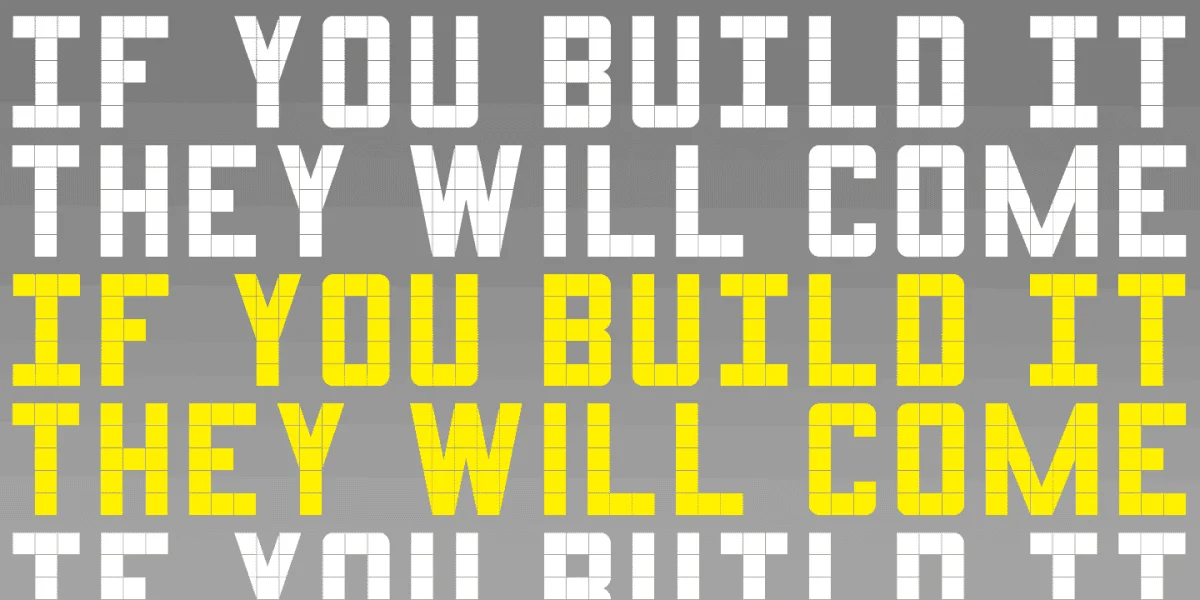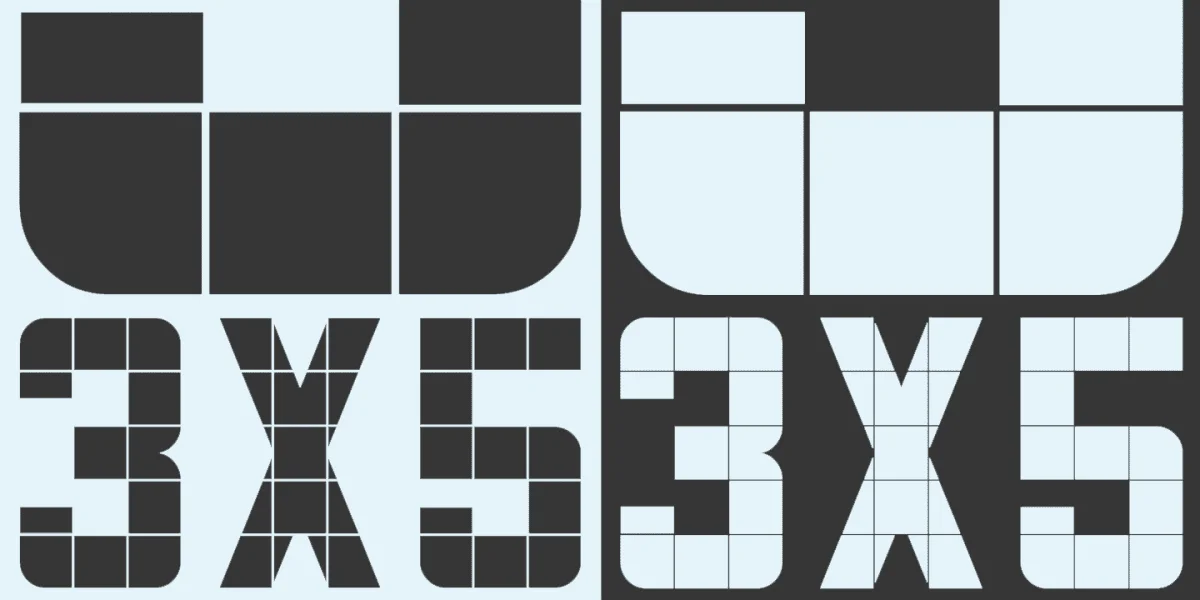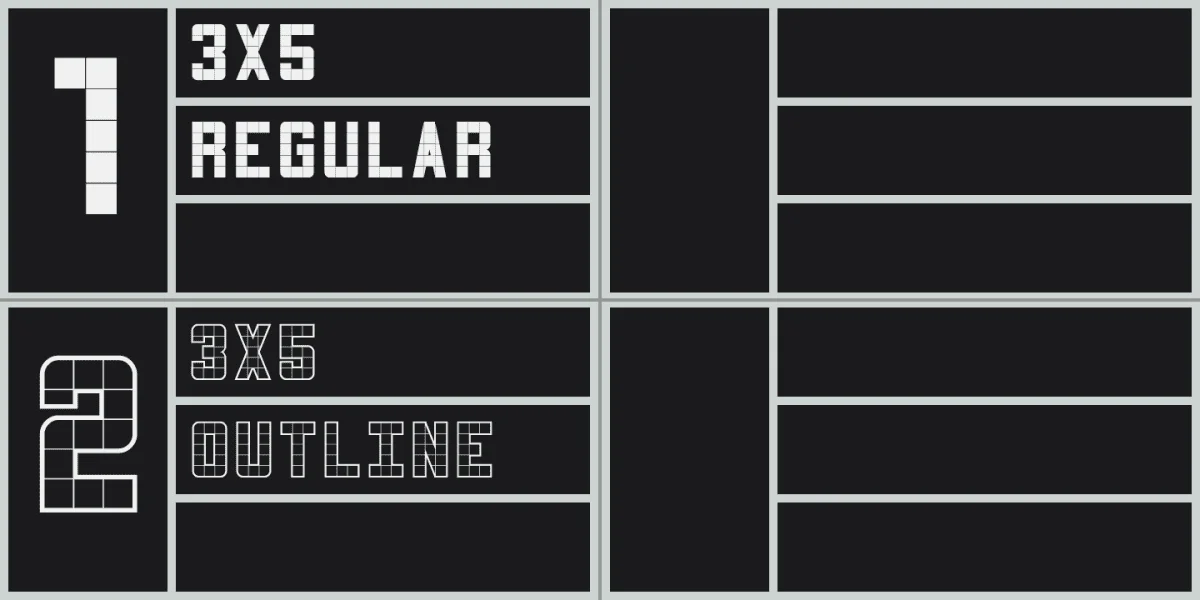
All Caps fonts based on the squared lettering used for art folders at the former Joseph Eastham High School in Salford, most letters being three squares wide and five squares tall. (Version 4.0, 2026)